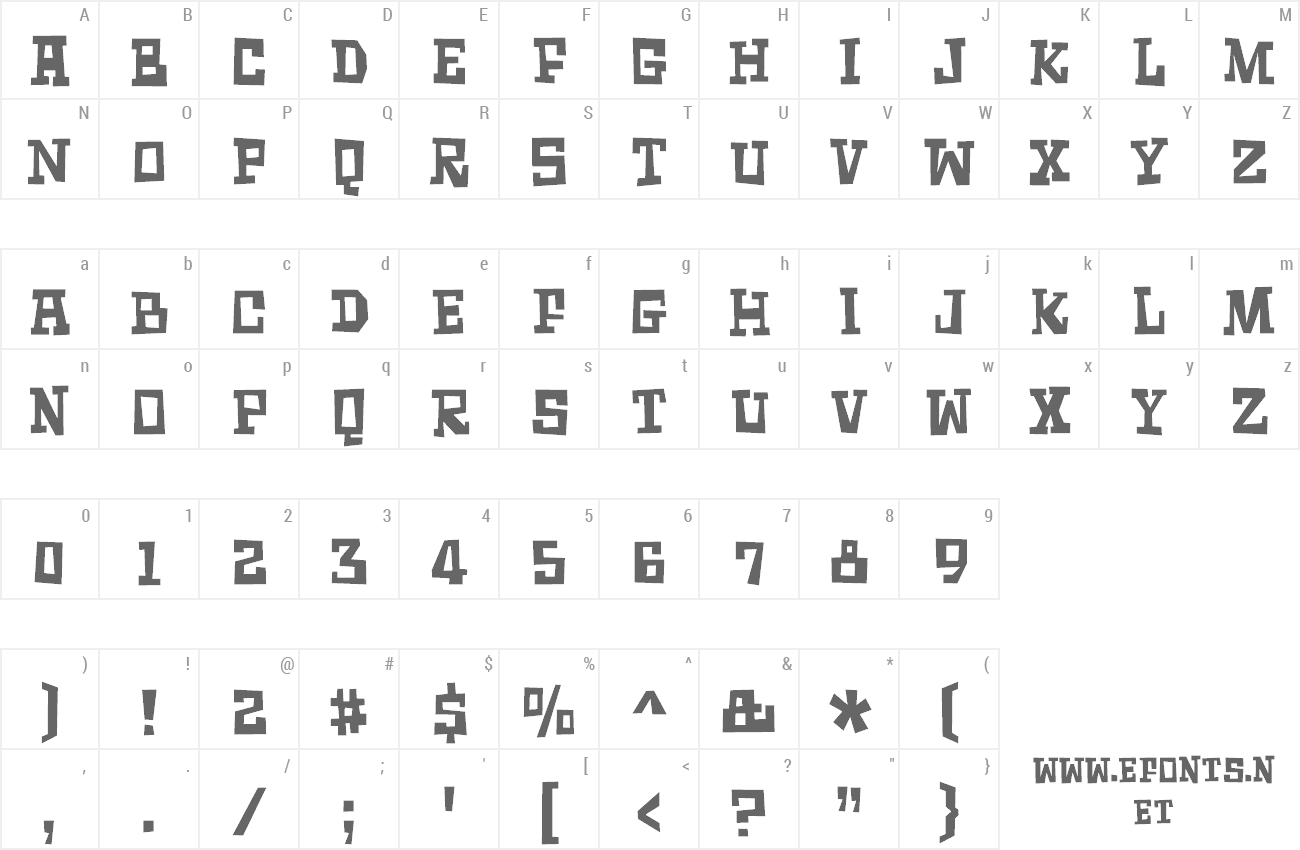
Preview and download Surfing Ashtray Font. Created by Pizzadude in Fancy Cartoon styles with Demo license.
Surfing Ashtray was inspired by old surfer movie posters from the 60’s. Surfing Ashtray consists of straight lines only - ironically the direct opposite of the ocean waves that was a part of the inspiration of this font! Hit the waves with extra ligatures for double letters, swashes and alternate letters (only available in the shareware version!) Copyright (c) 2016 by Jakob Fischer / pizzadude.dk. All rights reserved.Edit Description |